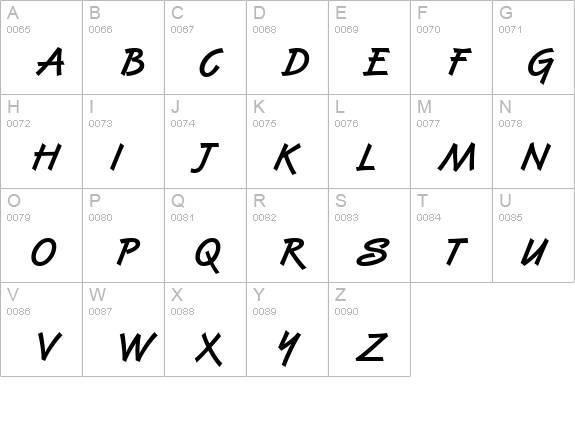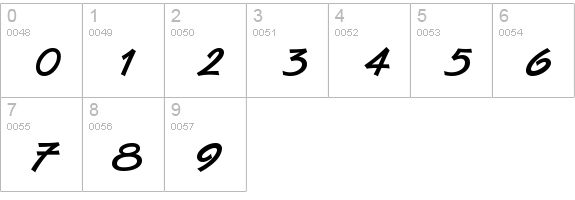
Van Dijk ICG Bold is a strong, high-contrast variant in the Van typeface family \xE2\x80\x94 well suited to headlines, attention-grabbing titles, and strong calls-to-action.
Van Dijk ICG Bold is a stunning and versatile font that is sure to make a bold statement in any design project. With its strong and commanding presence, this font is perfect for headlines, titles, and other attention-grabbing elements. The bold and robust letterforms exude confidence and power, making it ideal for projects that require a strong visual impact. What sets Van Dijk ICG Bold apart is not only its striking design, but also the fact that it is available for free. This means that designers, creatives, and enthusiasts alike can freely download and use this font without any restrictions. Whether you're working on a personal project or a professional endeavor, having access to high-quality fonts like Van Dijk ICG Bold can greatly enhance your design capabilities. The versatility of Van Dijk ICG Bold is evident in its ability to adapt to various design styles and themes. Its bold and assertive nature allows it to stand out on its own, yet it also pairs well with other fonts to create visually appealing combinations. From modern and contemporary designs to more traditional and classic aesthetics, this font effortlessly complements any concept or vision. Downloading Van Dijk ICG Bold is a breeze, as it is freely available to download at FontsMarket.com. This user-friendly website provides a seamless experience, allowing you to easily access and acquire this font without any hassle. FontsMarket.com offers a wide range of fonts for various purposes, making it a go-to platform for designers seeking high-quality, free fonts. In conclusion, Van Dijk ICG Bold is a remarkable font that combines boldness, versatility, and accessibility. Whether you're looking to make a strong statement or simply add a touch of sophistication to your designs, this font is an excellent choice. With its availability as a free download at FontsMarket.com, there's no reason not to take advantage of this exceptional font and elevate your design projects to new heights.